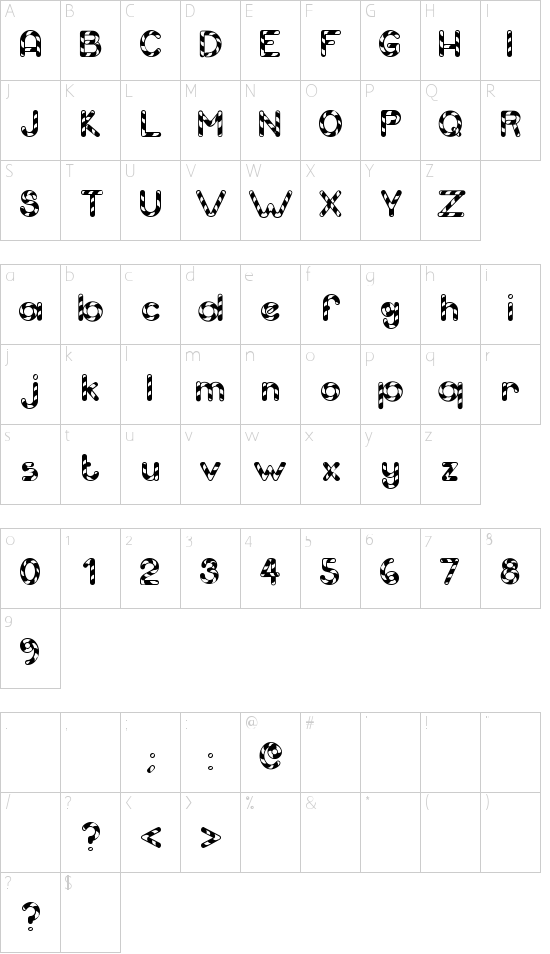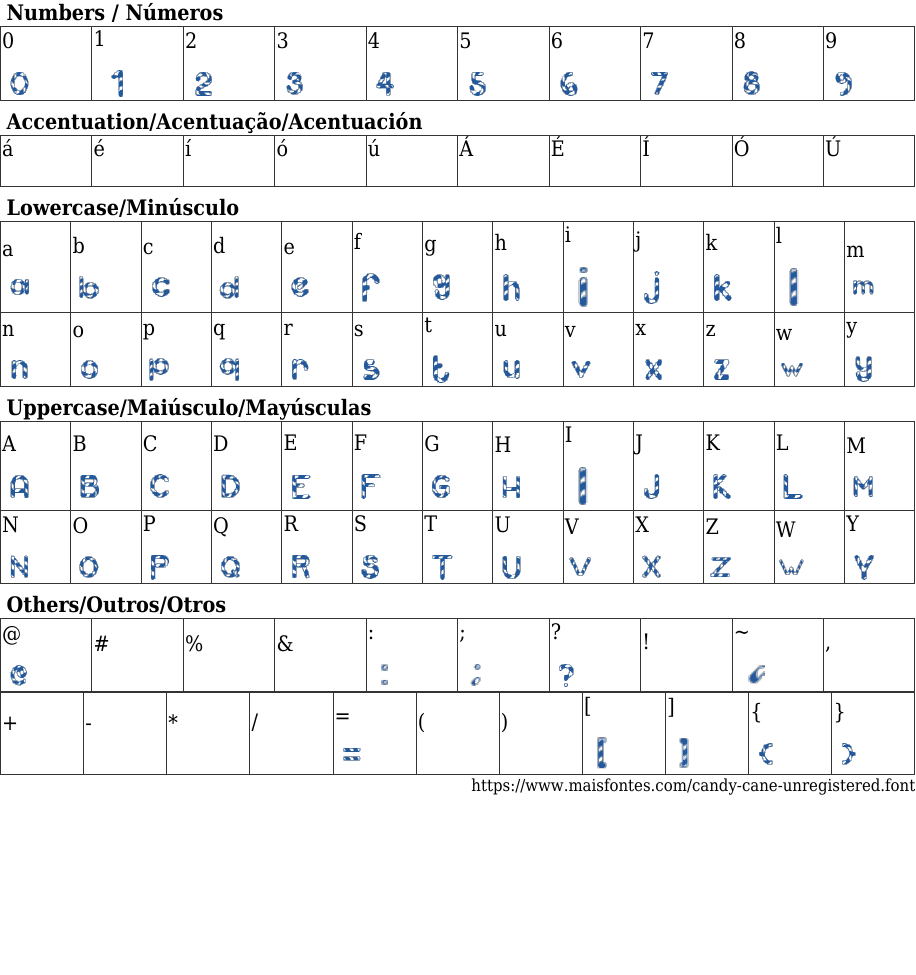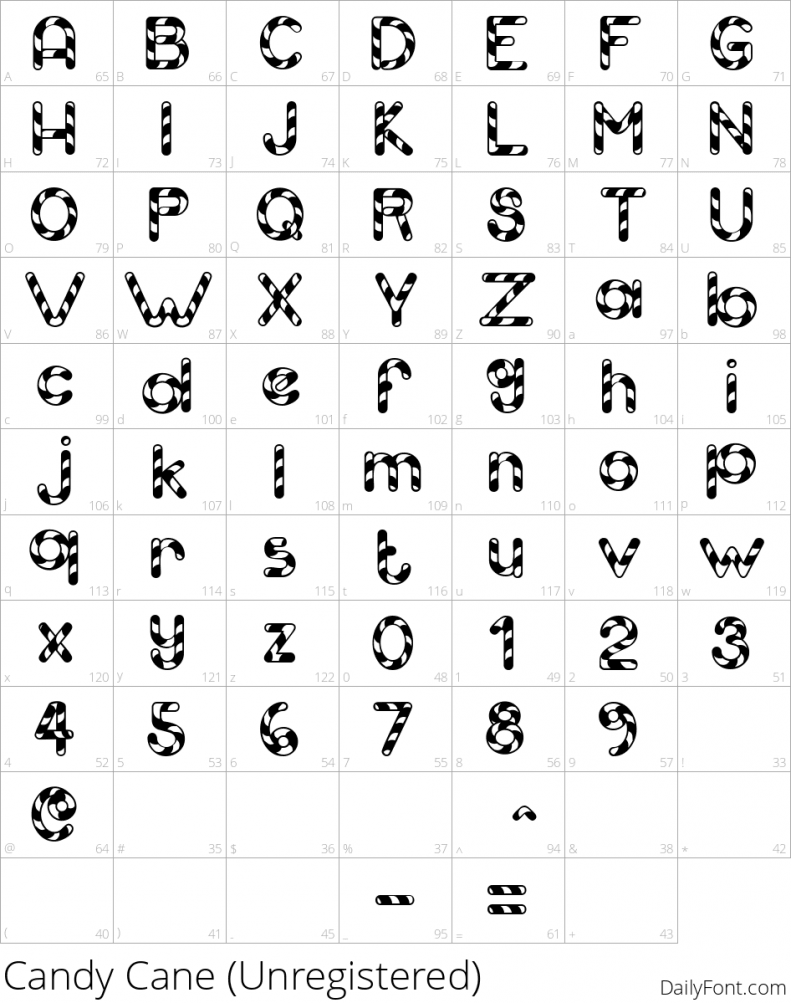
This is the page of candy cane (unregistered) font. Candy cane (unregistered) font | designed by match software | download candy cane (unregistered) for windows and mac | category:. Candy cane (unregistered) font details. Candy cane font | dafont.com. Candy cane (unregistered) font is the epitome of fun and festivity, making it ideal for capturing the spirit of christmas, birthdays, or any joyful. Download 186,286 free fonts at ufonts.com The candy cane [unregistered] font contains 253 beautifully designed characters. ️ customize your own preview on ffonts.net to make sure it`s the right one for your designs. 2 matching requests on the forum. Download candy cane (unregistered)truetype font.
Candy cane font numbers Royalty Free Vector Image Candy Cane Unregistered Font The candy cane [unregistered] font contains 253 beautifully designed characters. Candy cane (unregistered) font is the epitome of fun and festivity, making it ideal for capturing the spirit of christmas, birthdays, or any joyful. You can download it for free and without registration here. Download 186,286 free fonts at ufonts.com 2 matching requests on the forum. Candy cane (unregistered) font. Candy Cane Unregistered Font.
Candy Canes Font by Unitype · Creative Fabrica Candy Cane Unregistered Font Candy cane font | dafont.com. Download 186,286 free fonts at ufonts.com You can download it for free and without registration here. The candy cane [unregistered] font contains 253 beautifully designed characters. View font details, character map, custom preview, downloads, file contents and more. 2 matching requests on the forum. Candy cane (unregistered) font free download, unlock your creativity with candy. Candy Cane Unregistered Font.
Candy Cane (Unregistered) font Candy Cane Unregistered Font Download candy cane (unregistered)truetype font. Candy cane (unregistered) font free download, unlock your creativity with candy cane (unregistered) for free today and start creating stunning designs Download 186,286 free fonts at ufonts.com Candy cane (unregistered) font details. Candy cane (unregistered) font | designed by match software | download candy cane (unregistered) for windows and mac | category:. ️ customize your. Candy Cane Unregistered Font.
Candy Cane (Unregistered) Font Candy Cane Unregistered Font Candy cane font | dafont.com. Candy cane (unregistered) font | designed by match software | download candy cane (unregistered) for windows and mac | category:. 2 matching requests on the forum. Candy cane (unregistered) font free download, unlock your creativity with candy cane (unregistered) for free today and start creating stunning designs Download candy cane (unregistered)truetype font. This is the. Candy Cane Unregistered Font.
Candy Font Candy Cane Font TTF SVG PNG Files Christmas Font Candy Cane Unregistered Font You can download it for free and without registration here. Candy cane (unregistered) font free download, unlock your creativity with candy cane (unregistered) for free today and start creating stunning designs This is the page of candy cane (unregistered) font. Download 186,286 free fonts at ufonts.com Download candy cane (unregistered)truetype font. Candy cane (unregistered) font is the epitome of fun. Candy Cane Unregistered Font.